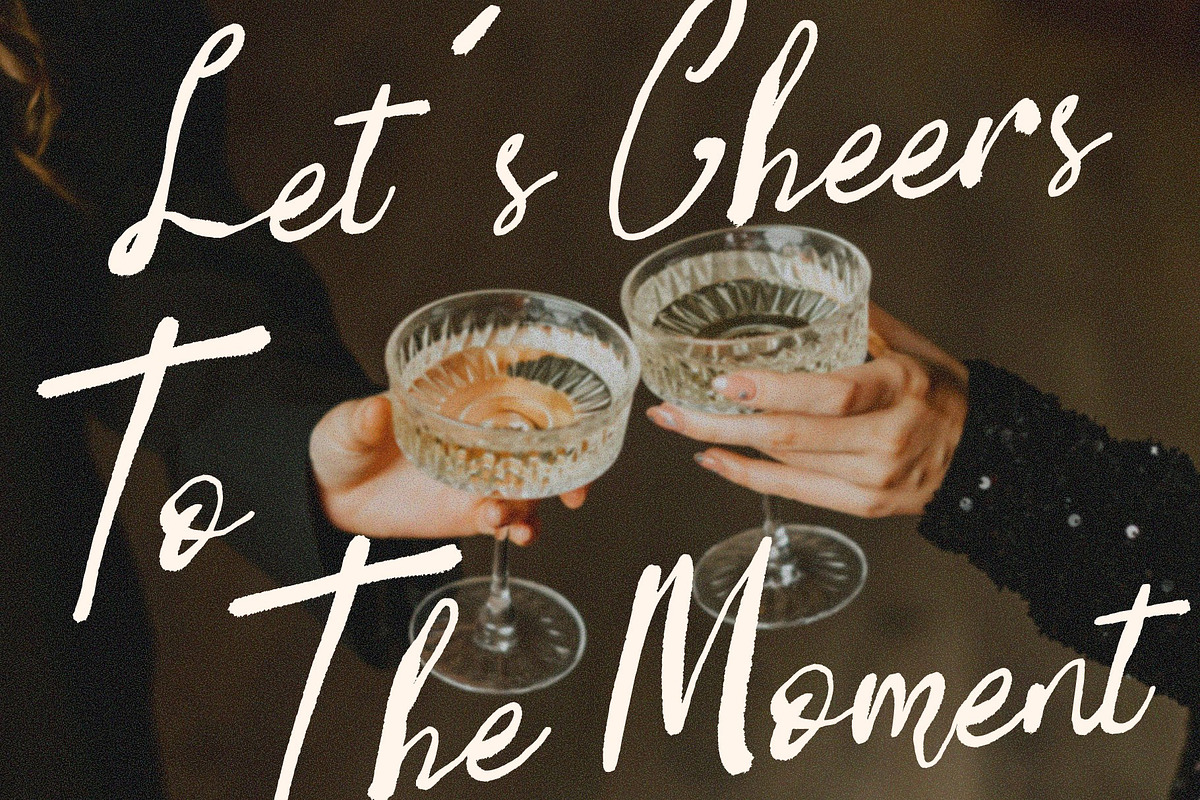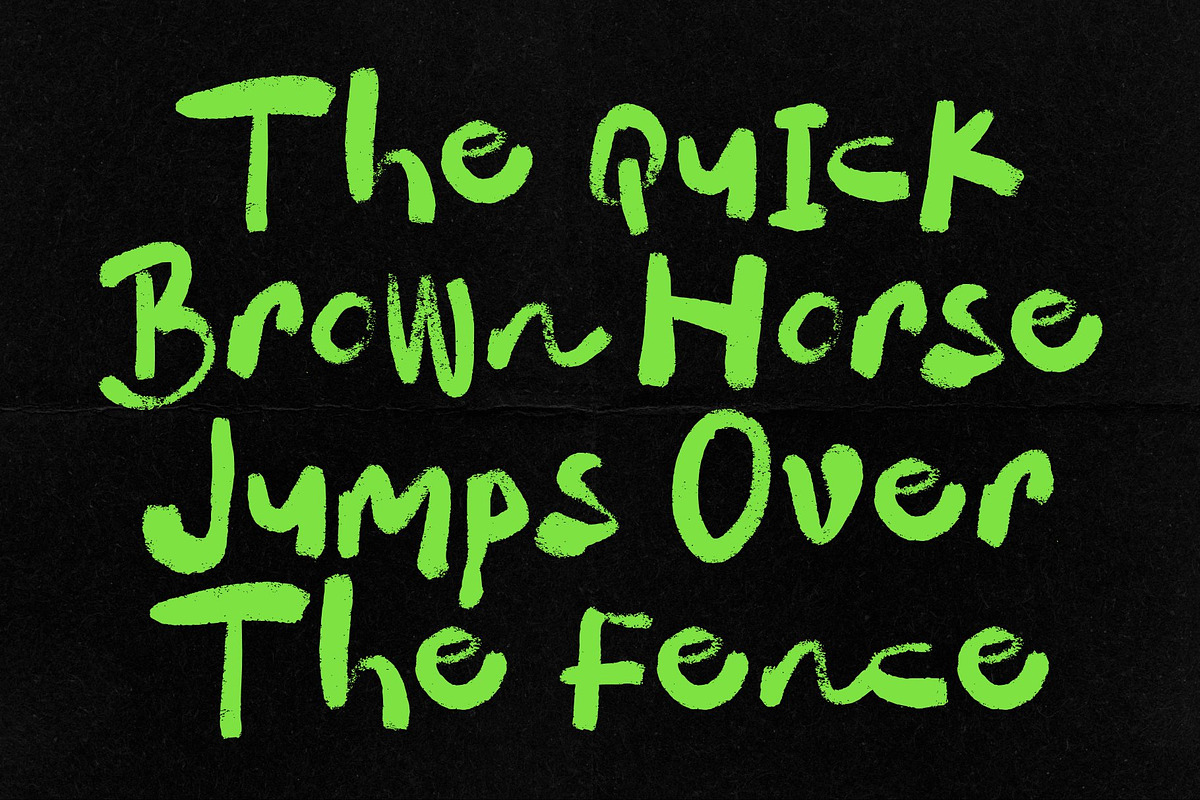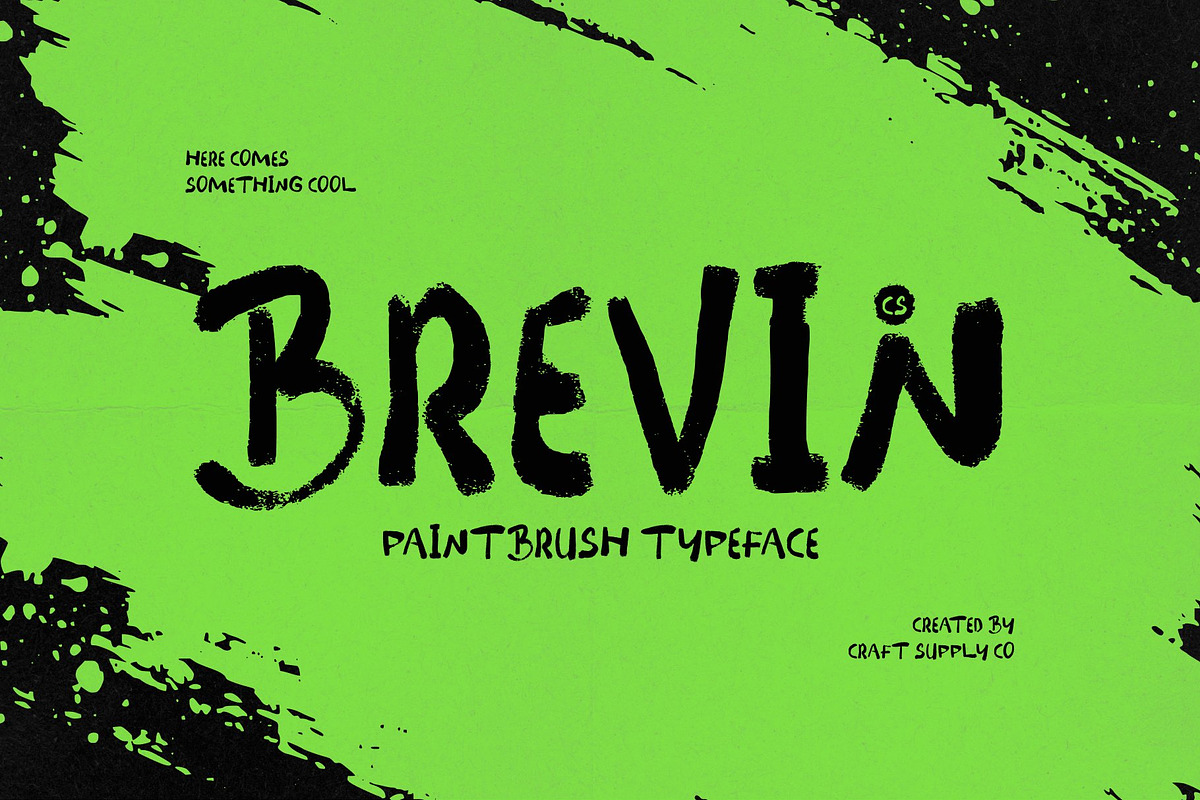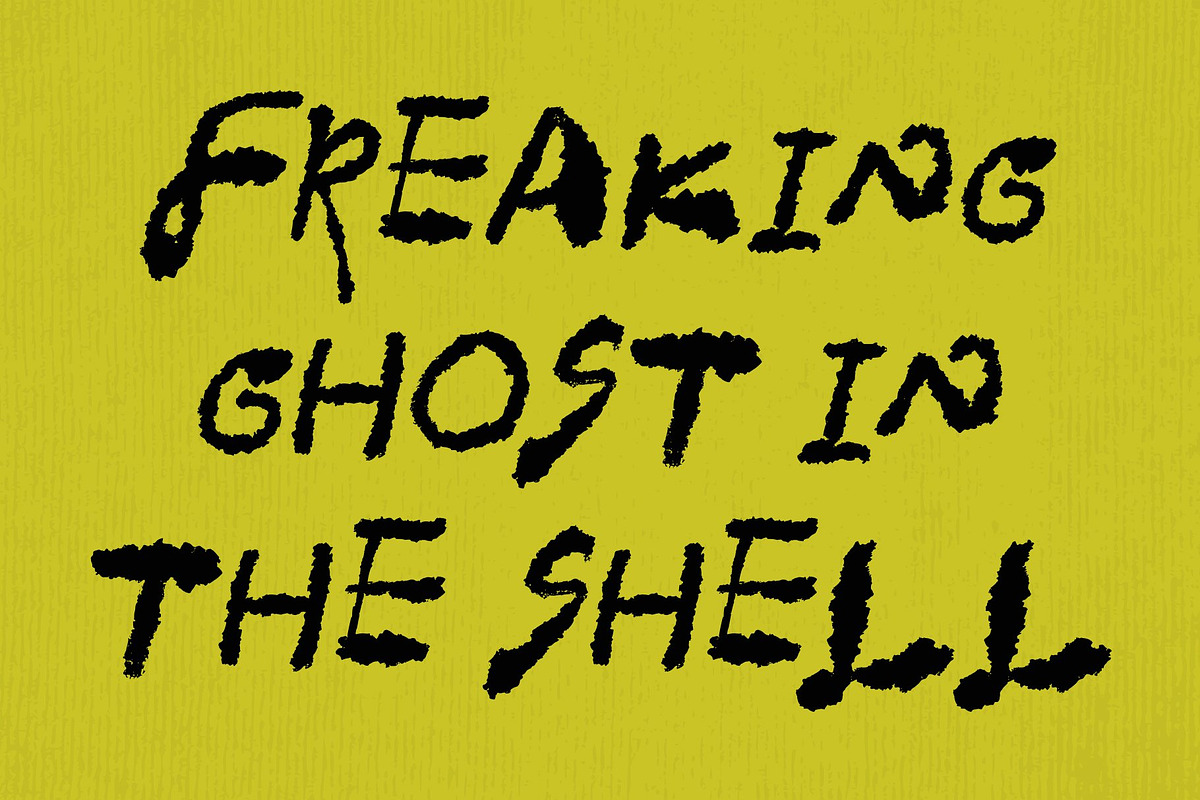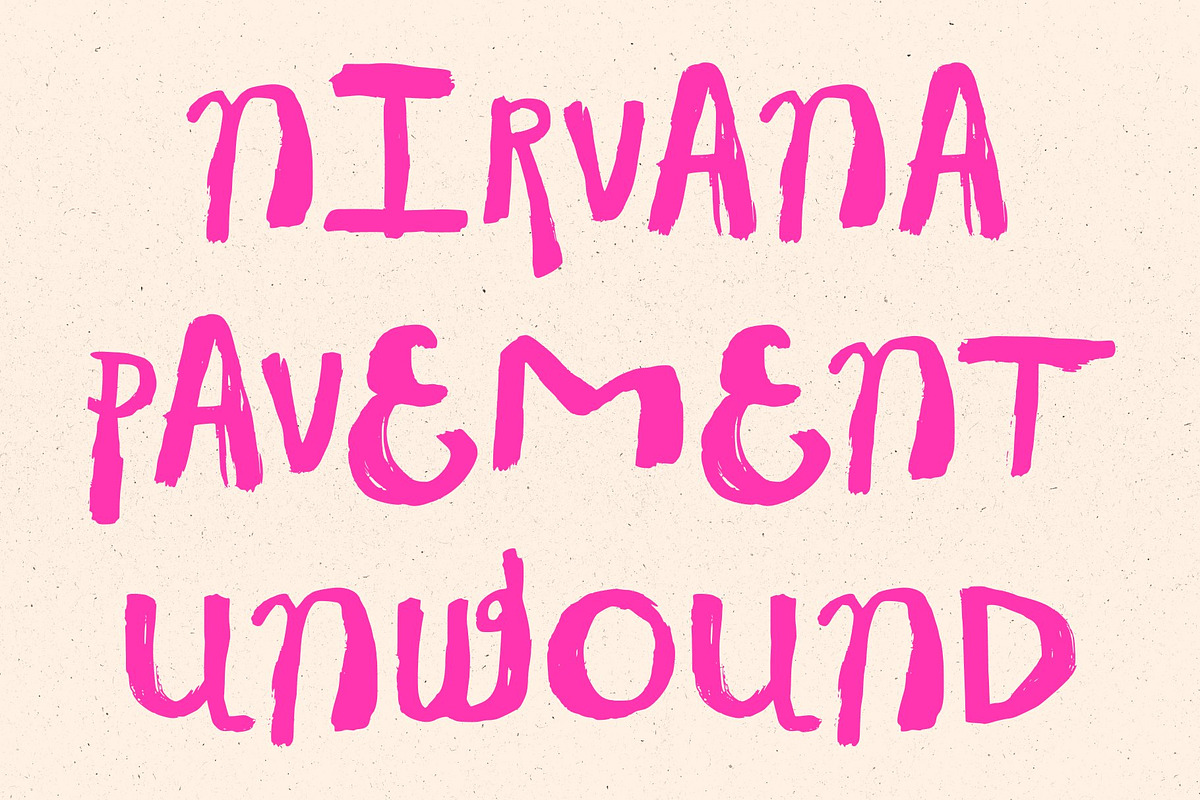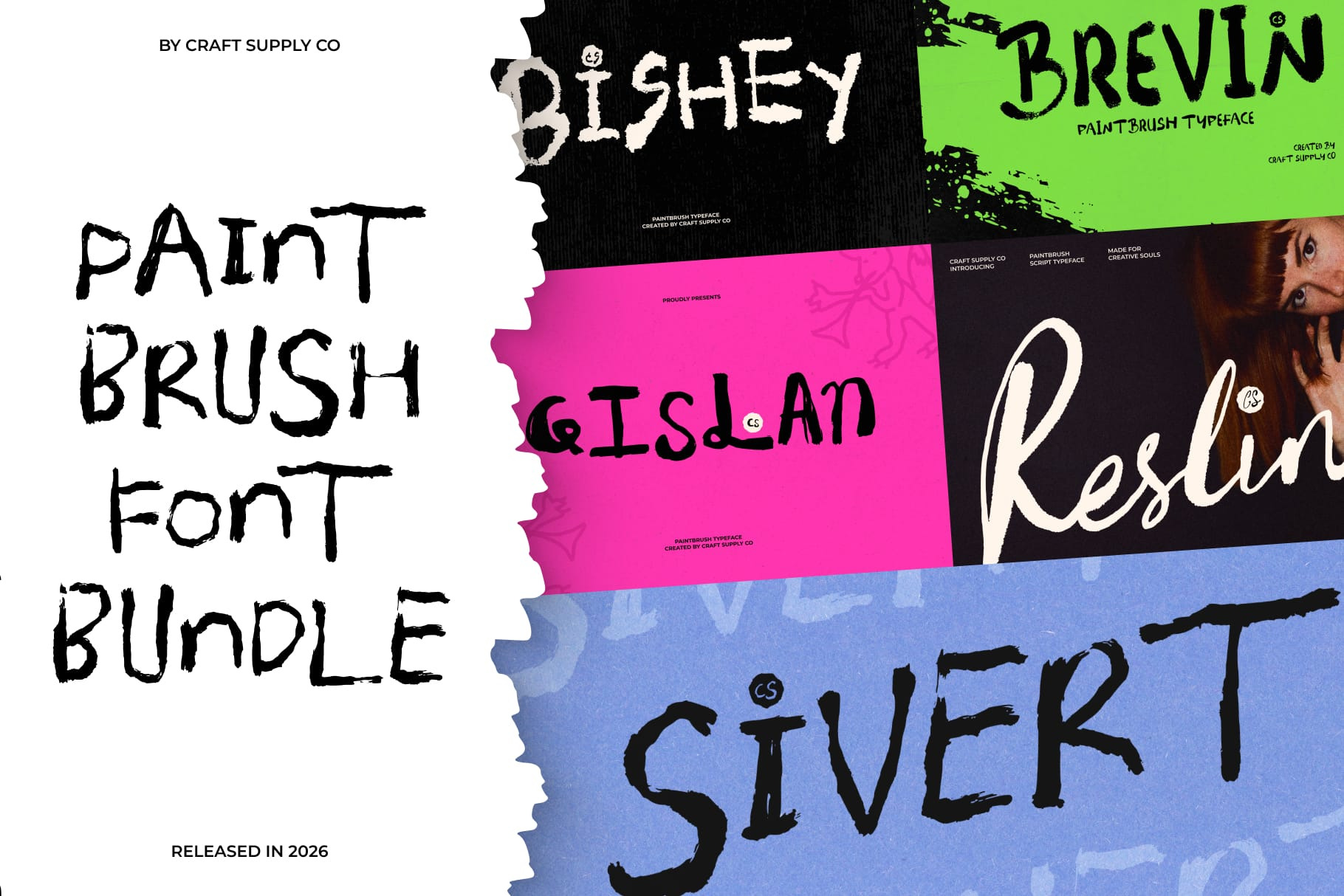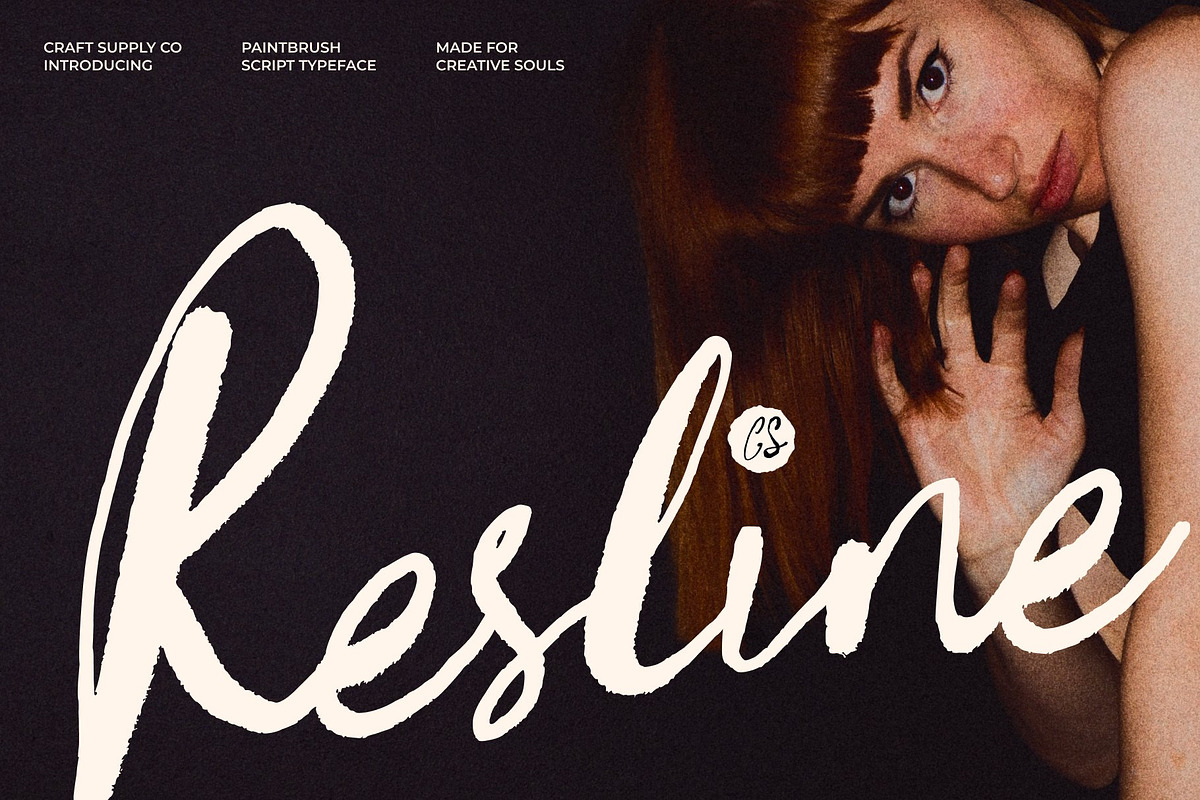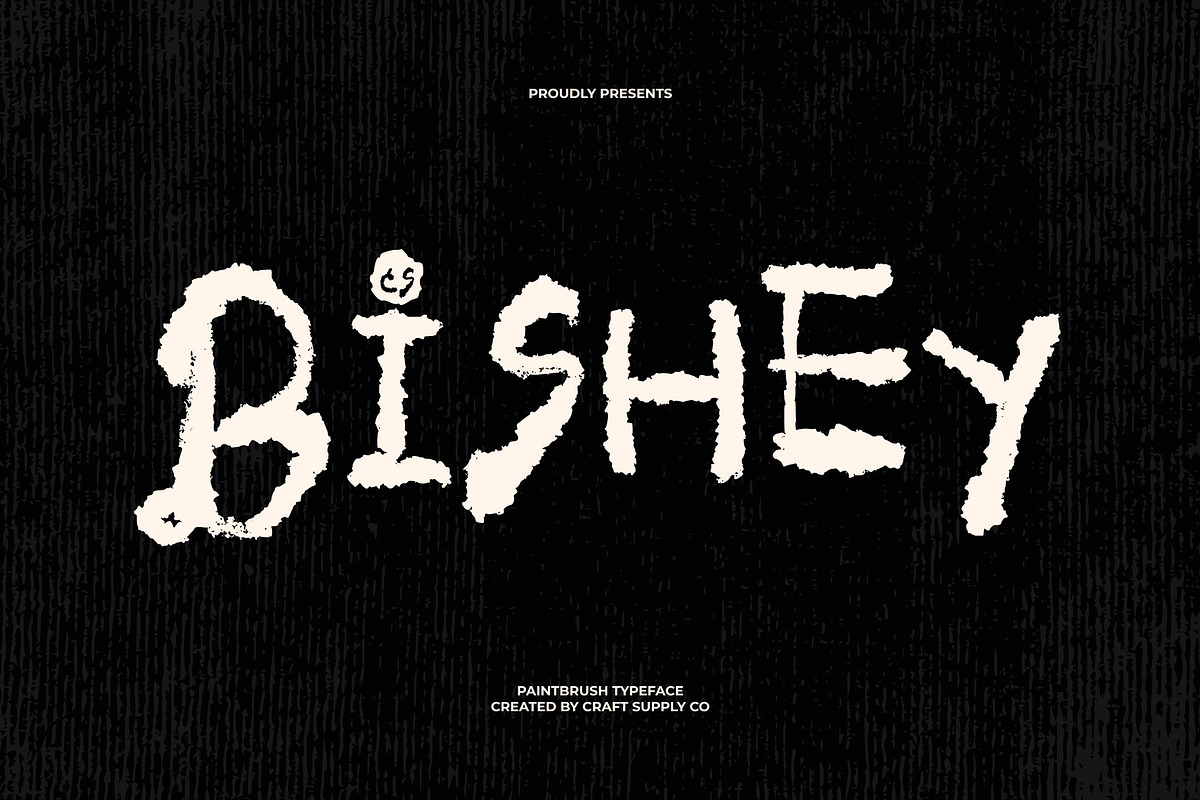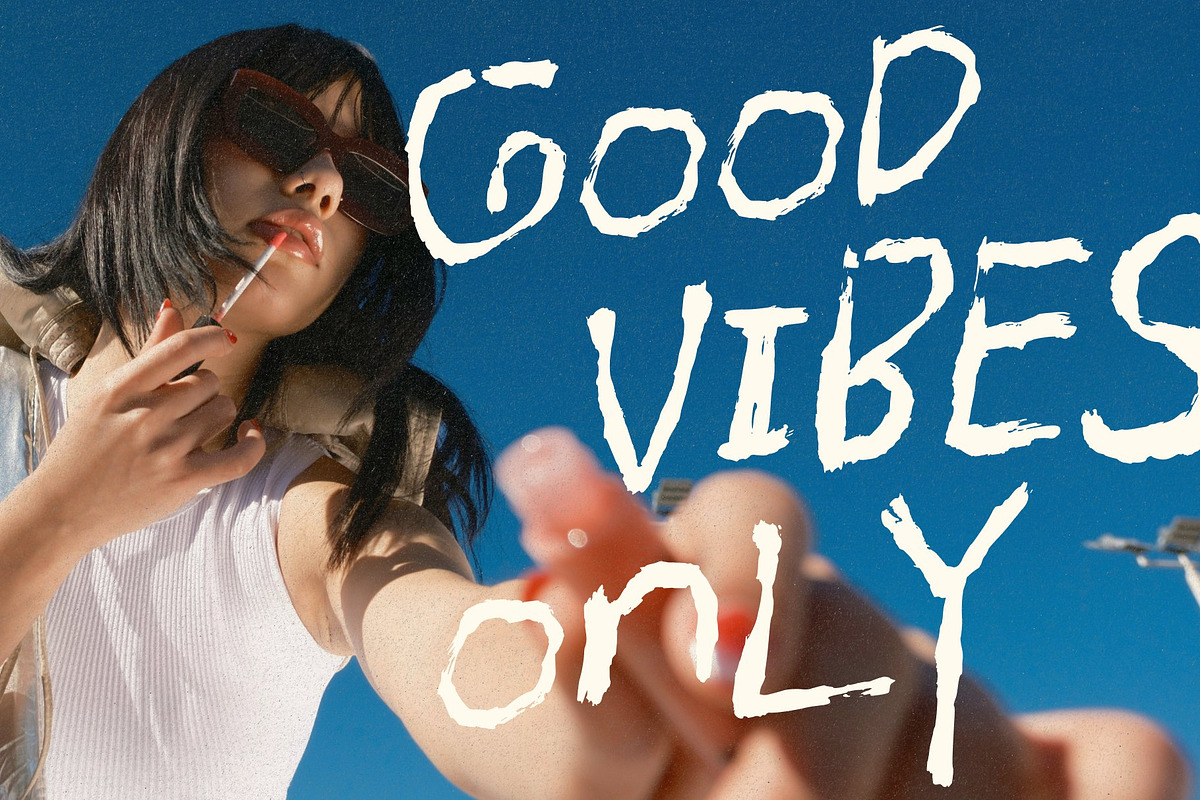
Paintbrush Font Bundle
Unlock fifteen distinct typefaces in one comprehensive collection with the Paintbrush Font Bundle, available now for $29 instead of the original one hundred dollar value. This diverse library is thoughtfully inspired by loose brush strokes, authentic artist signatures, casual sketchbook notes, and the quick, expressive marks made at the end of a paintbrush. Each of the fifteen unique styles captures genuine hand-painted texture, bringing organic movement and immediate creative energy straight to your digital workspace.
Elevate your visual storytelling across both print and digital media by applying these expressive letterforms to editorial layouts, artistic posters, lifestyle blogs, and stationery designs. The striking contrast of the brush strokes commands attention in display settings, making them ideal for impactful headlines, social media graphics, and album covers.
CS Bishey
CS Brevin
CS Gislan
CS Reslin
CS Sivert